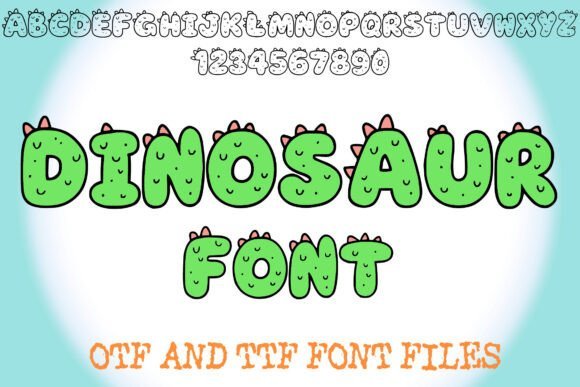
The Prehistoric Power of Dinosaur Font
Who among us hasn’t felt the rush of creative excitement when brainstorming a new project? Perhaps it’s a birthday party invitation for a little one, a poster for a school event, or even a craft project with a friend’s kids. Whatever the idea, it’s that spark of imagination that sets our creativity ablaze. And for designers, it’s often the perfect font that brings a project to life. Which brings us to Dinosaur Font – a delightful display font that’s sure to capture kids’ attention and bring a playful Jurassic twist to any project.
With its bold, chunky letters adorned with spikes and textures, Dinosaur Font is the perfect tool for educational materials, birthday invitations, posters, and creative crafts. Whether you’re a designer, educator, or parent, this adorable font is a valuable addition to your toolkit, making learning and play even more fun. So why not unleash the prehistoric power of Dinosaur Font in your next project and watch the magic happen?
Dinosaur Font Key Features
- Font Family: Dinosaur Font is a unique, hand-drawn font with a prehistoric theme.
- Unique Characteristics: Features a bold, playful design with irregular letterforms, giving it a distinctive prehistoric feel.
- Character Set: Includes a wide range of characters, including uppercase and lowercase letters, numbers, and punctuation marks.
Dinosaur Font Review
I recently had the chance to work with “Dinosaur Font” and I must say, it’s a unique choice for any project. Here are my honest thoughts on what works well and what doesn’t.
- The font is a great choice for creating a playful and whimsical atmosphere. It’s perfect for kids’ websites, educational materials, or any project that needs a touch of fun.
- The font is highly customizable, allowing you to adjust the size, color, and even add animations to make it more engaging.
- The font includes a wide range of characters, including emojis and special symbols, making it perfect for creative projects.
- The font can be overwhelming for large blocks of text. It’s best used for headlines or short paragraphs to avoid visual fatigue.
- The font may not be suitable for professional or formal projects, as it can come across as unprofessional.
- The font can be difficult to read on smaller screens or at smaller font sizes, so make sure to test it thoroughly.
Overall, I think “Dinosaur Font” is a great choice for creative projects that need a playful touch. However, it’s not suitable for all types of projects, and it’s essential to test it thoroughly before using it extensively. With proper usage, it can be a great addition to any design project.
Tips for Getting the Most Out of the Dinosaur Font
Use the Dinosaur Font for creative and playful designs, such as:
- Children’s party invitations
- Prehistoric-themed posters
- Fun and quirky social media graphics
The Dinosaur Font is ideal for:
- Adding a playful touch to educational materials
- Creating engaging and interactive content
- Designing eye-catching marketing materials
Alternatives to “Dinosaur Font” for Designers
Badaboom
Badaboom is a distressed, handwritten font that evokes a sense of nostalgia and playfulness. It’s perfect for use in creative, eye-catching headings or titles, and can add a touch of whimsy to designs.
Compared to Dinosaur Font, Badaboom has a more fluid, cursive feel, making it suitable for a wider range of design applications.
Cream Soda is a bold, distressed font with a unique, retro aesthetic. It’s ideal for use in headings or titles where a sense of energy and playfulness is desired.
Unlike Dinosaur Font, Cream Soda has a more rounded, softer feel, making it suitable for designs that require a touch of warmth and approachability.
Rock Salt is a distressed, textured font with a rugged, industrial feel. It’s perfect for use in headings or titles where a sense of grit and edginess is desired.